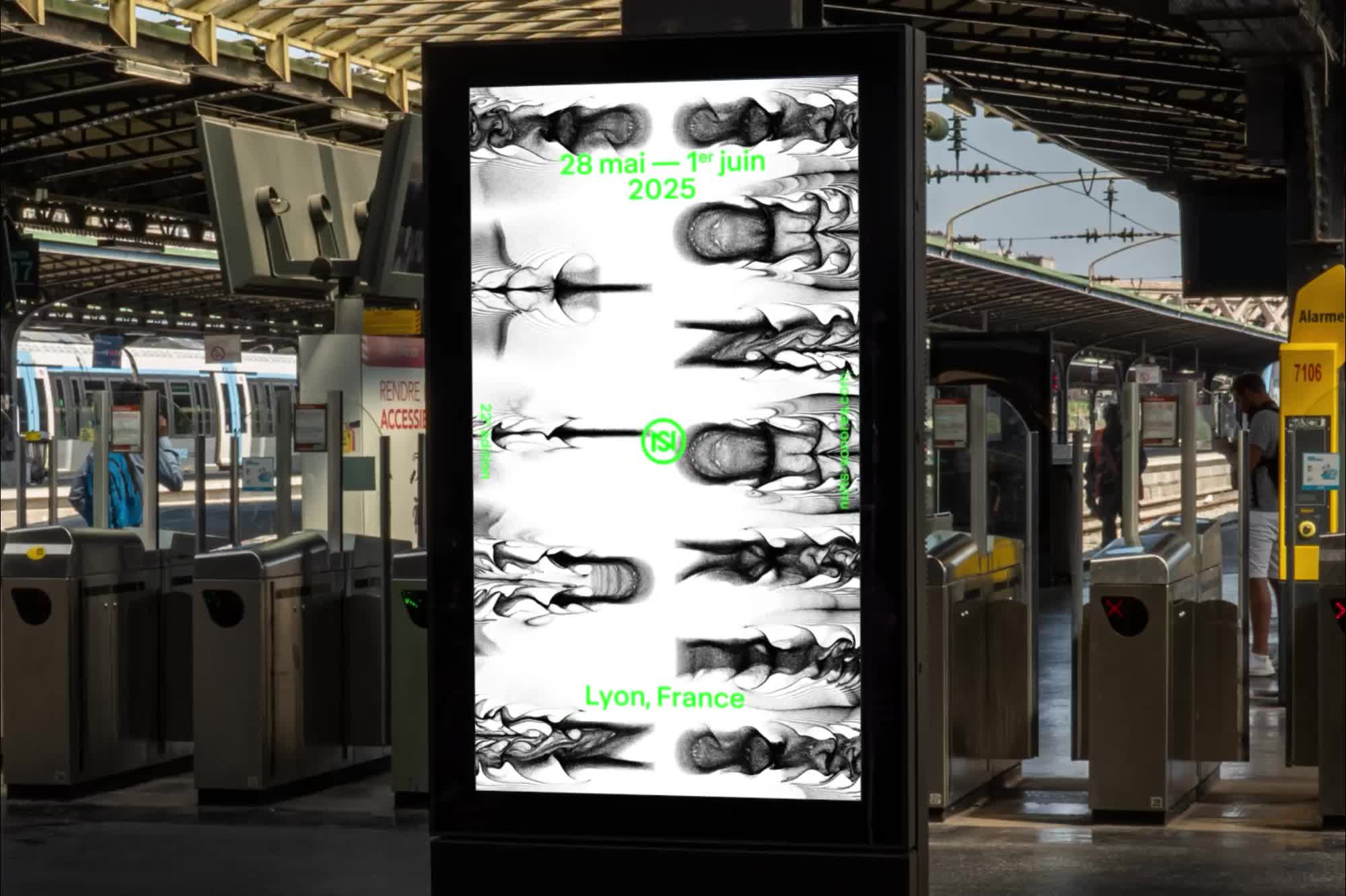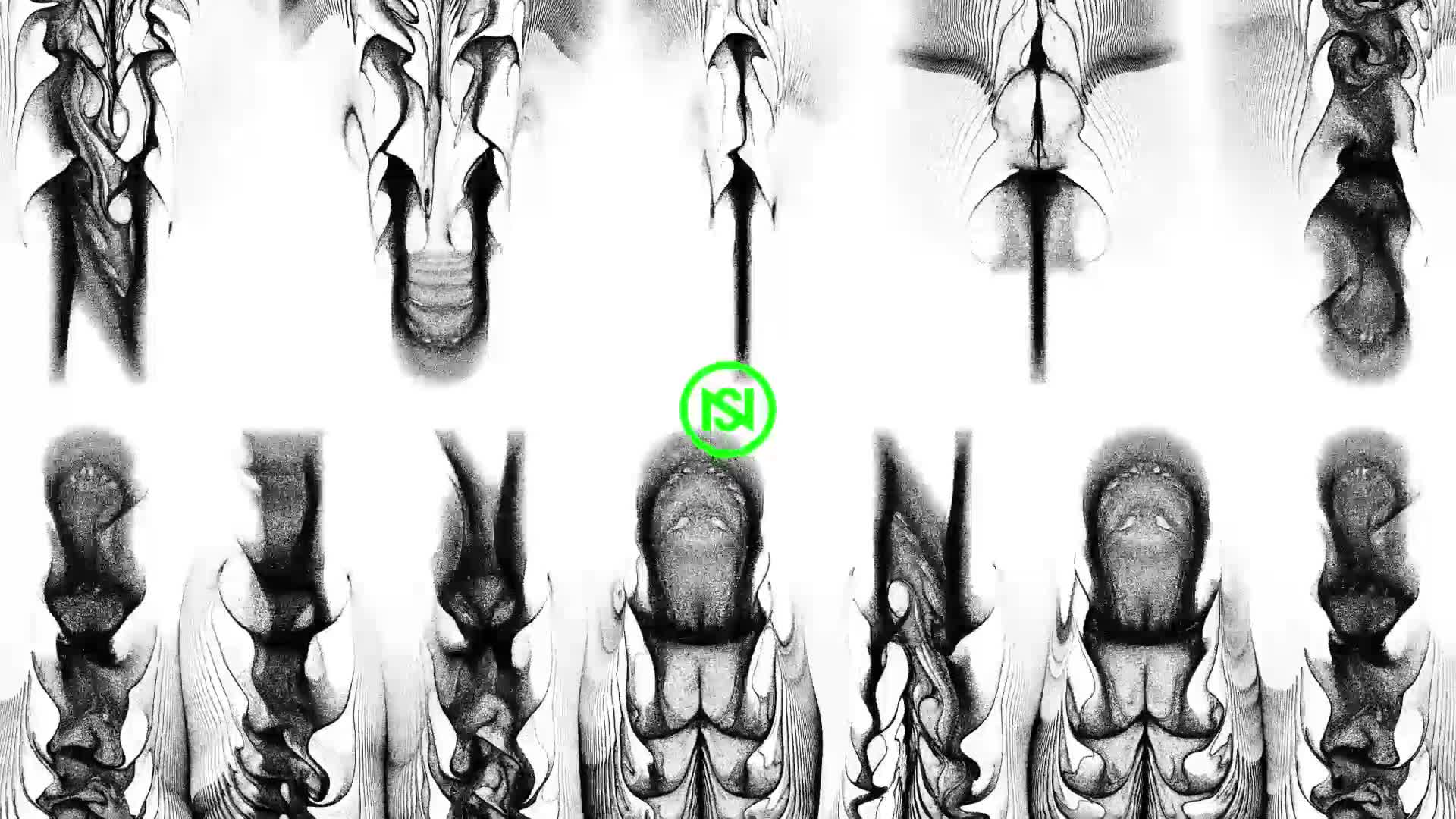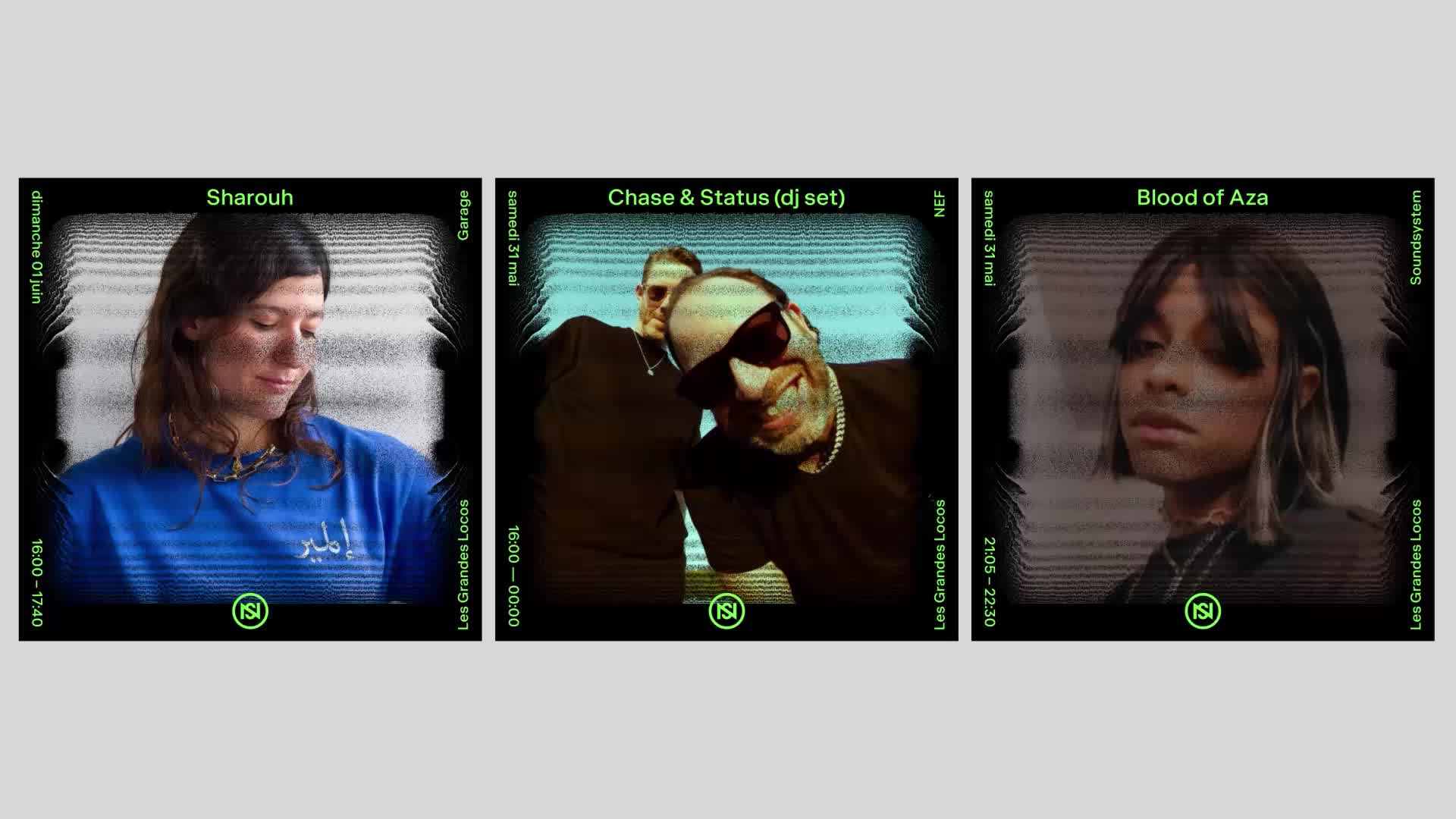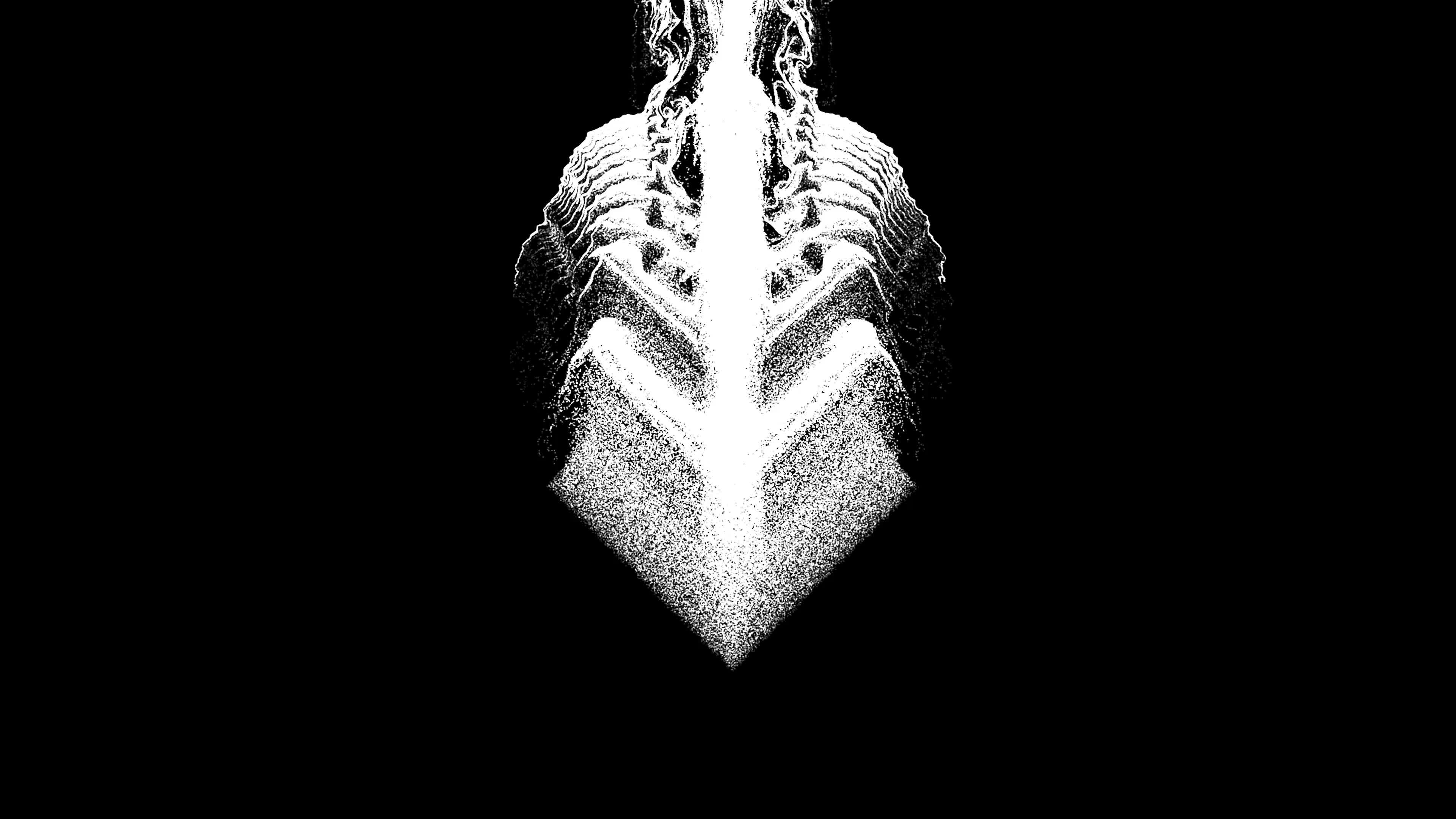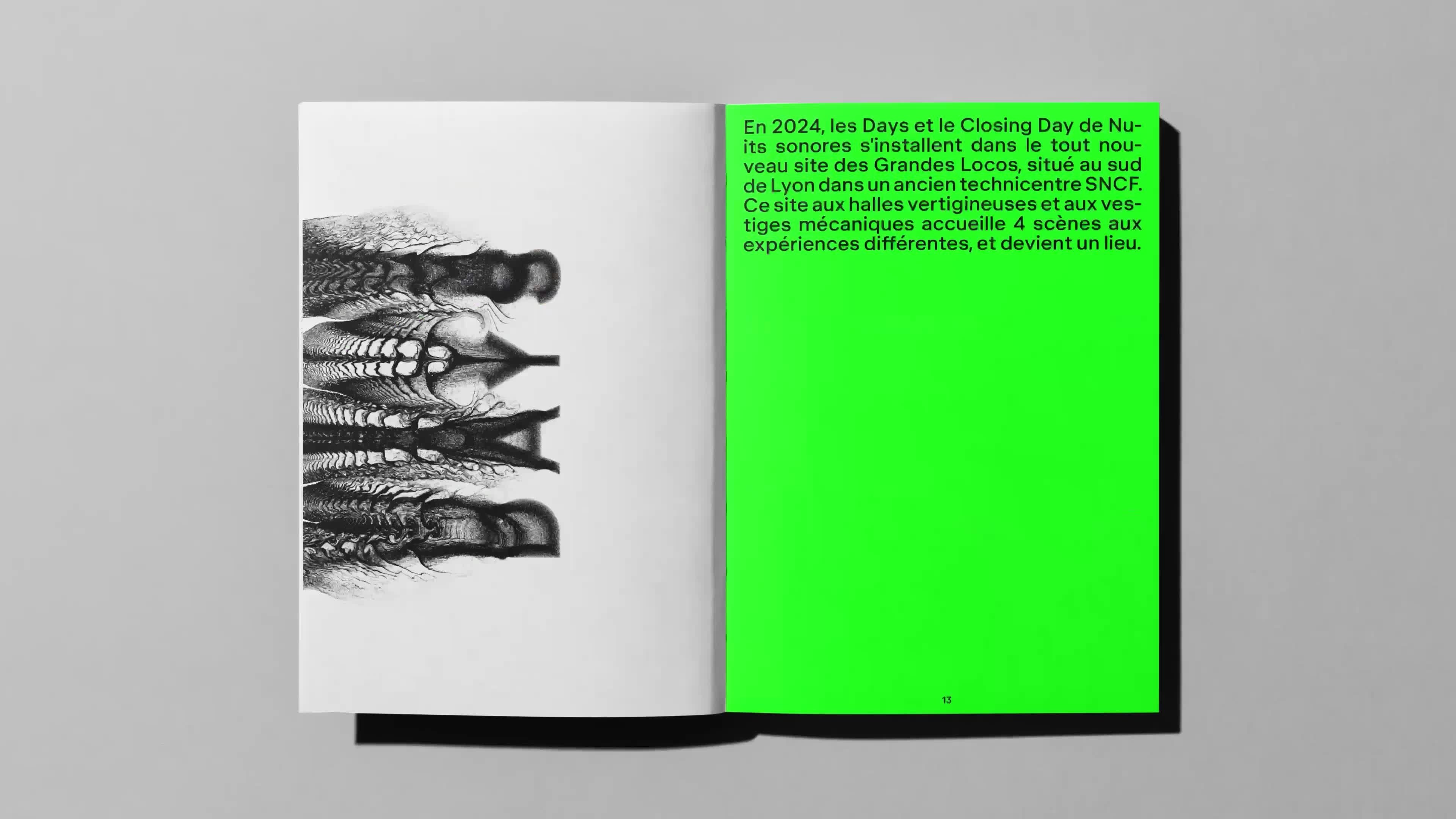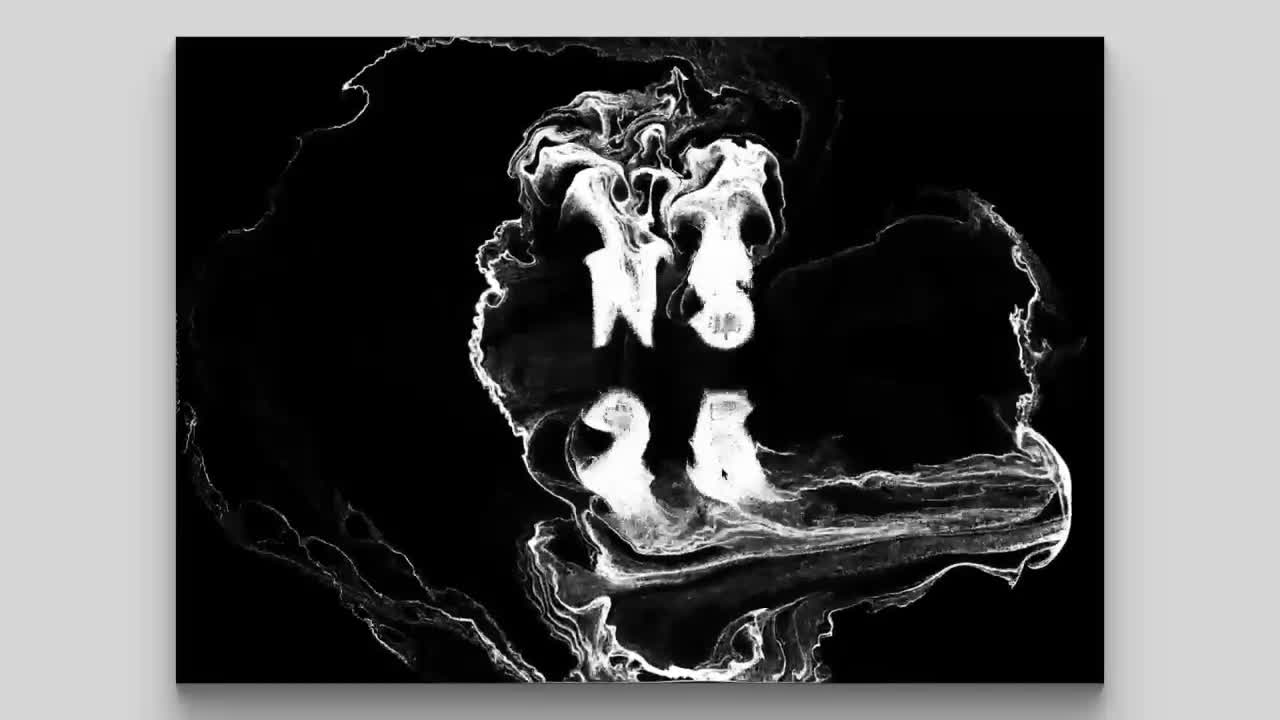
Nuits Sonores
by DIA Studio
DIA Studio's kinetic identity for Nuits Sonores employs a generative tool, using fluid dynamics and particle simulation, to visualize sound. This system applies MNKY Klaus, a custom monoline grotesque, ensuring legibility under aggressive dispersion. The design intelligently scales across various media via calibrated presets. The key takeaway is designing the system first to allow infinite, consistent variations, particularly smart for event identities requiring dynamic, self-generated content.